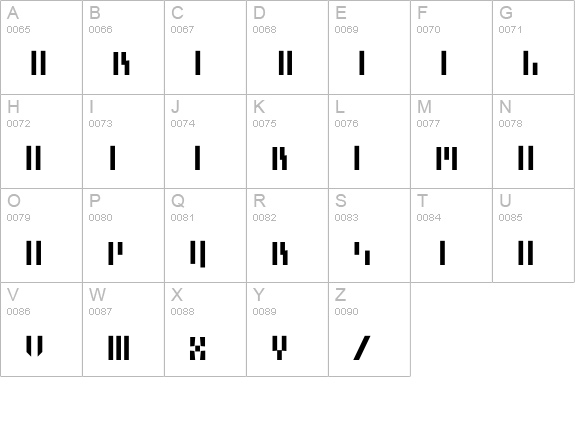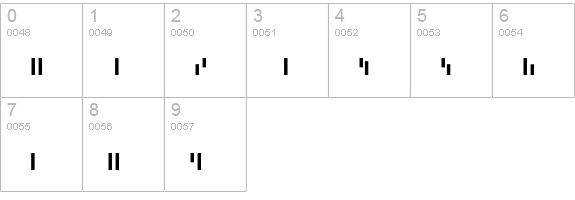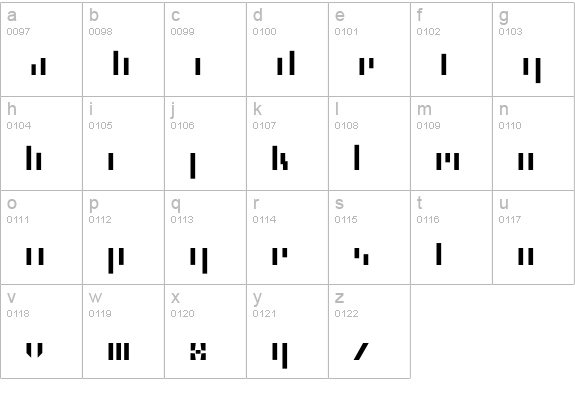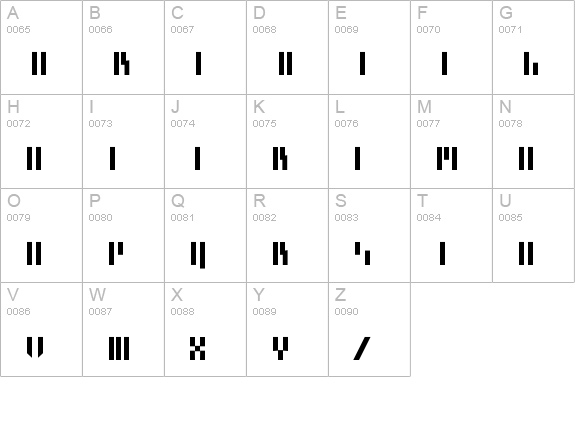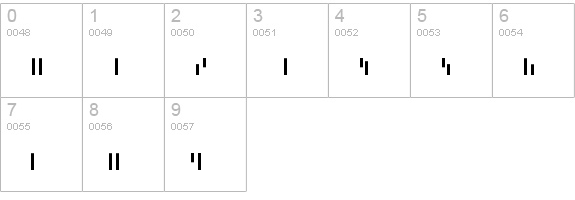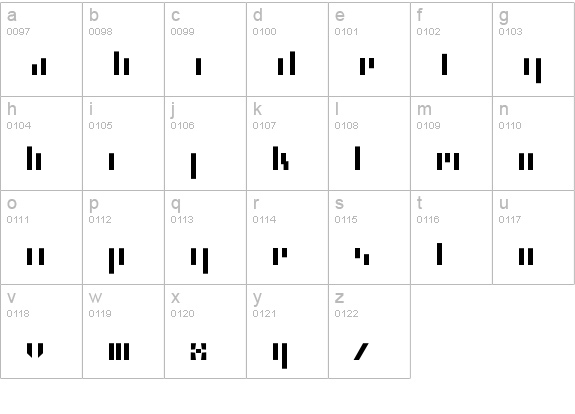
Minimum-BNoirVertical Font Details
Introducing Minimum-BNoirVertical, a sleek and sophisticated font that exudes a sense of mystery and intrigue. With its bold vertical design and sharp angles, this font is perfect for creating a noir-inspired look that will captivate your audience. The clean lines and minimalist style of Minimum-BNoirVertical make it versatile and suitable for a wide range of design projects. This unique font is available for free download at FontsMarket.com, making it easily accessible for designers and enthusiasts alike. Whether you're working on a poster, logo, or branding project, Minimum-BNoirVertical will add a touch of elegance and sophistication to your designs. Don't miss out on this opportunity to enhance your creations with this stunning font.